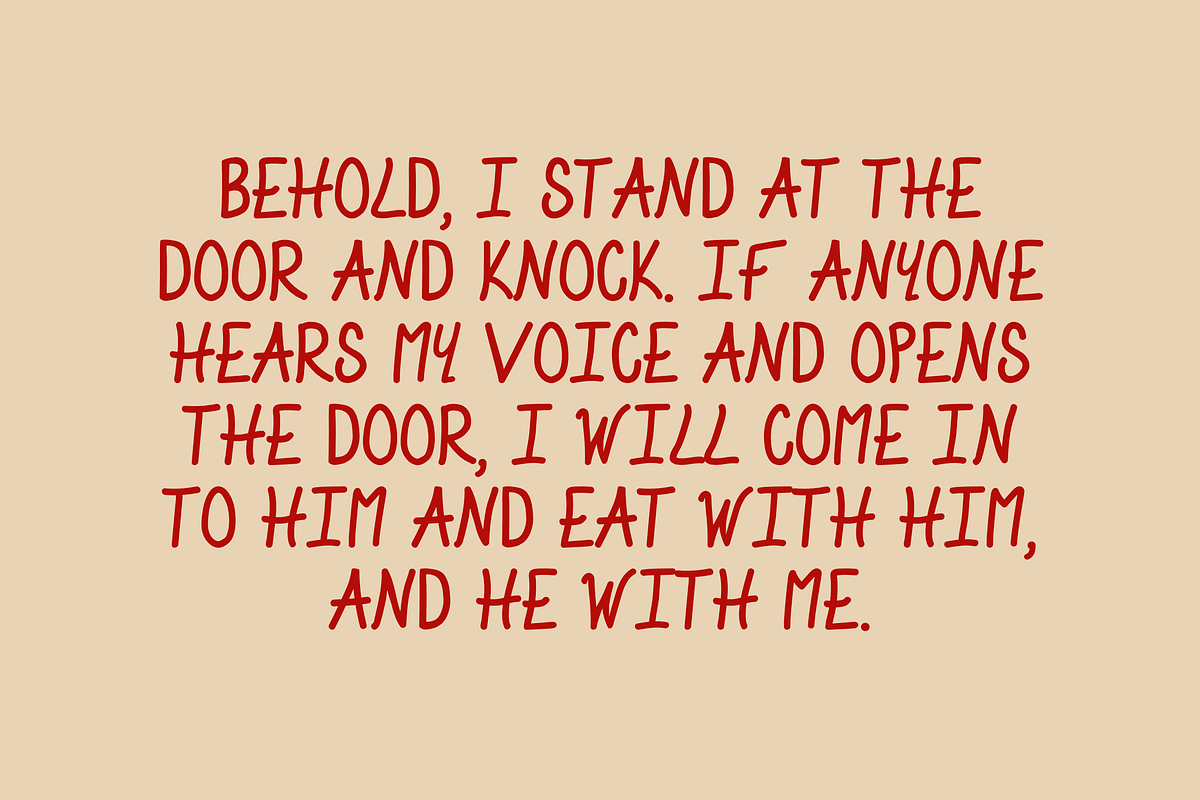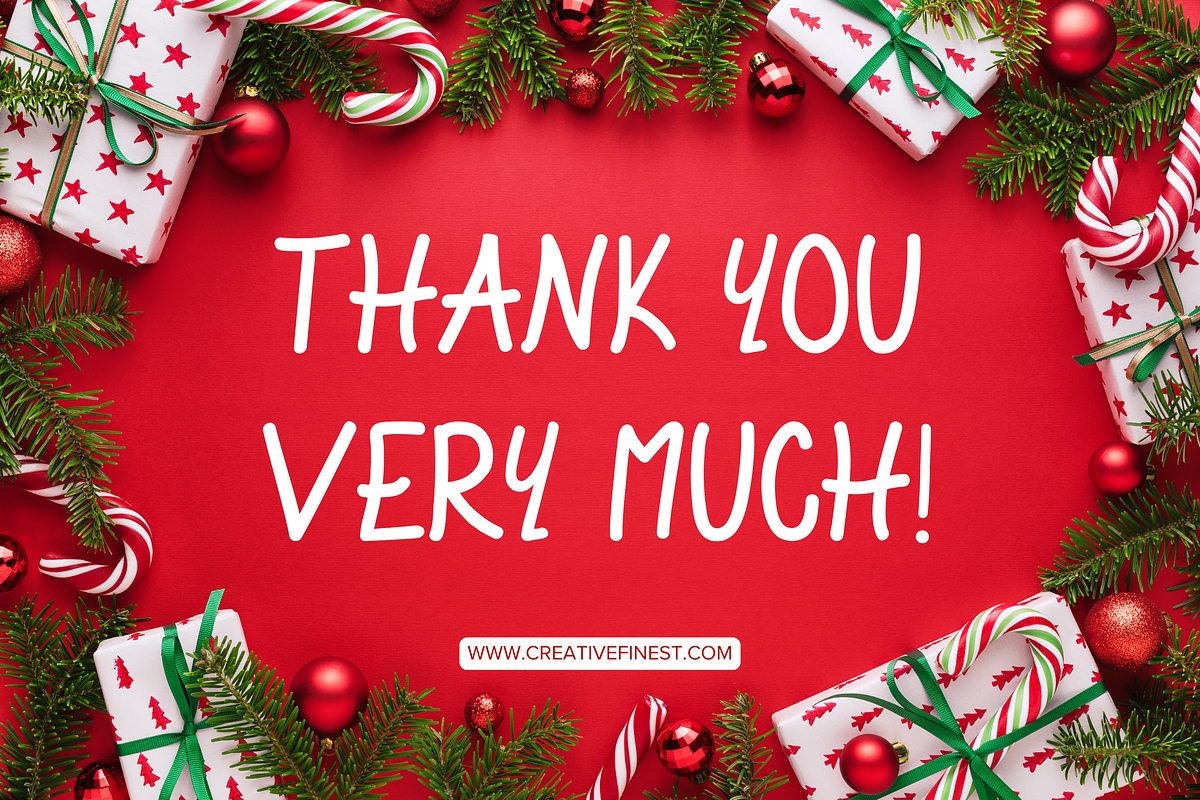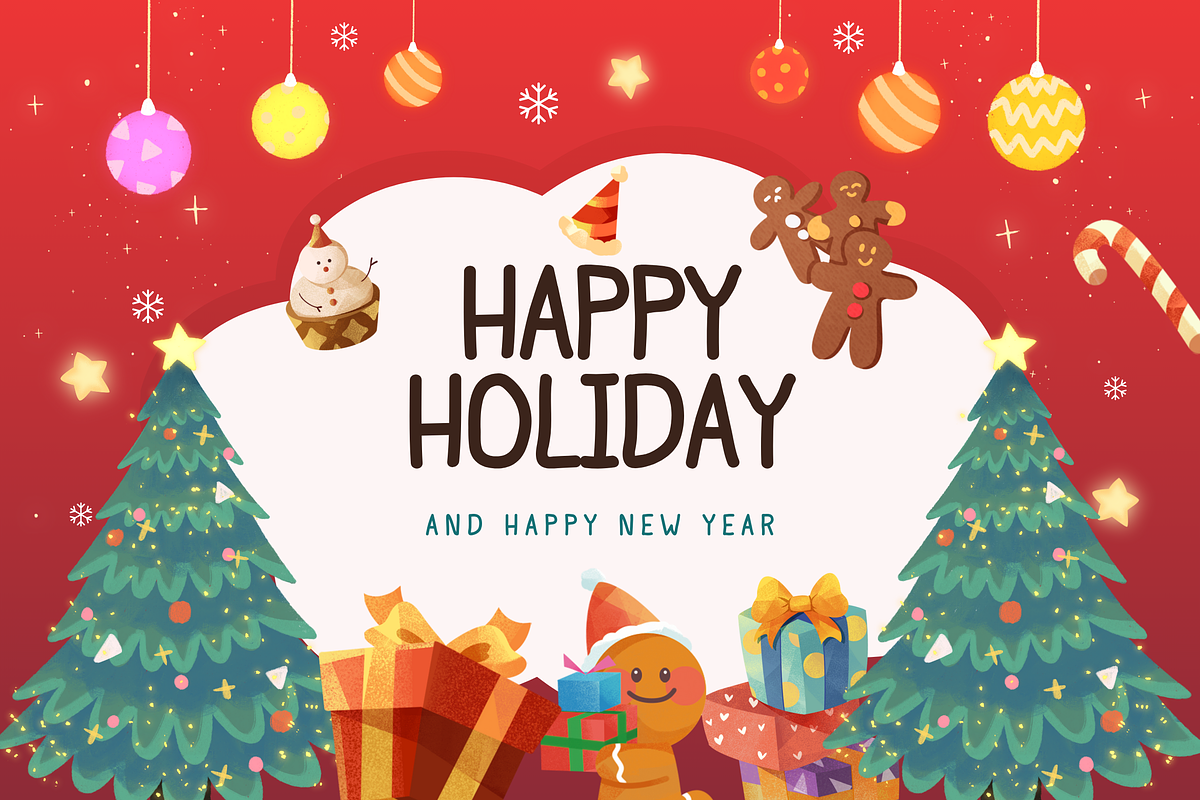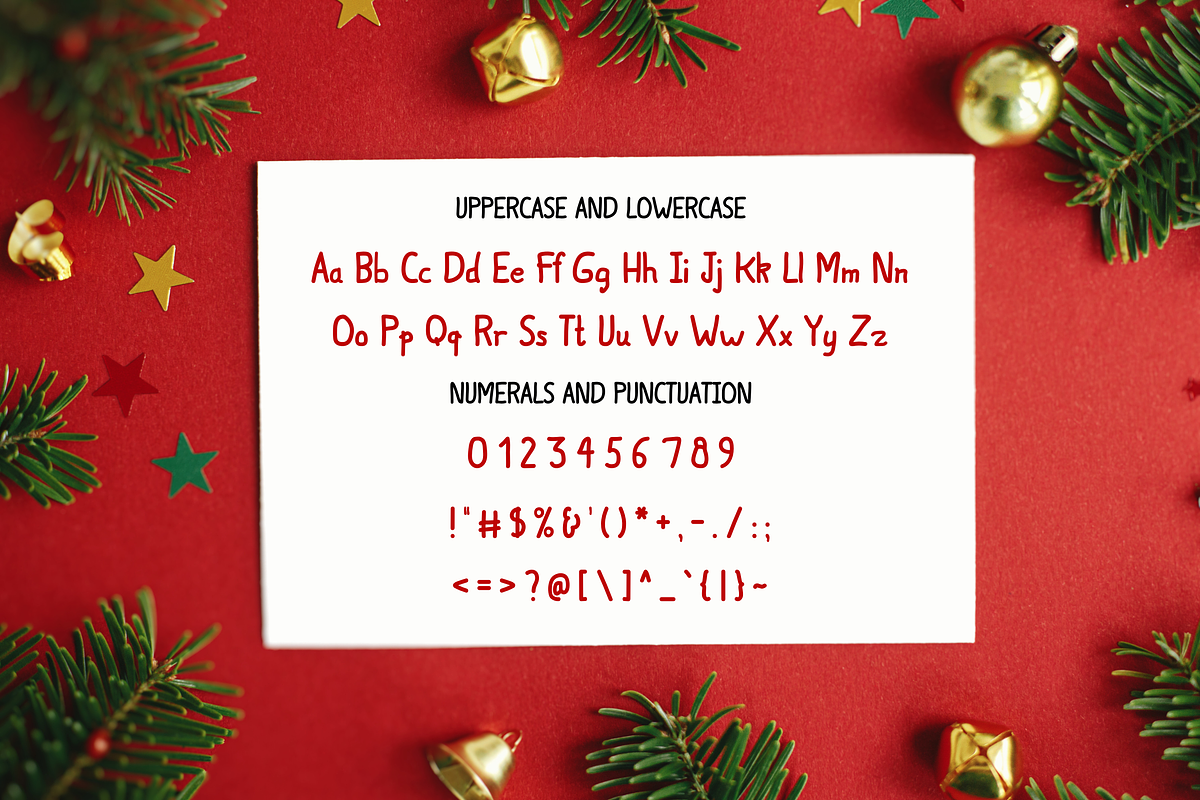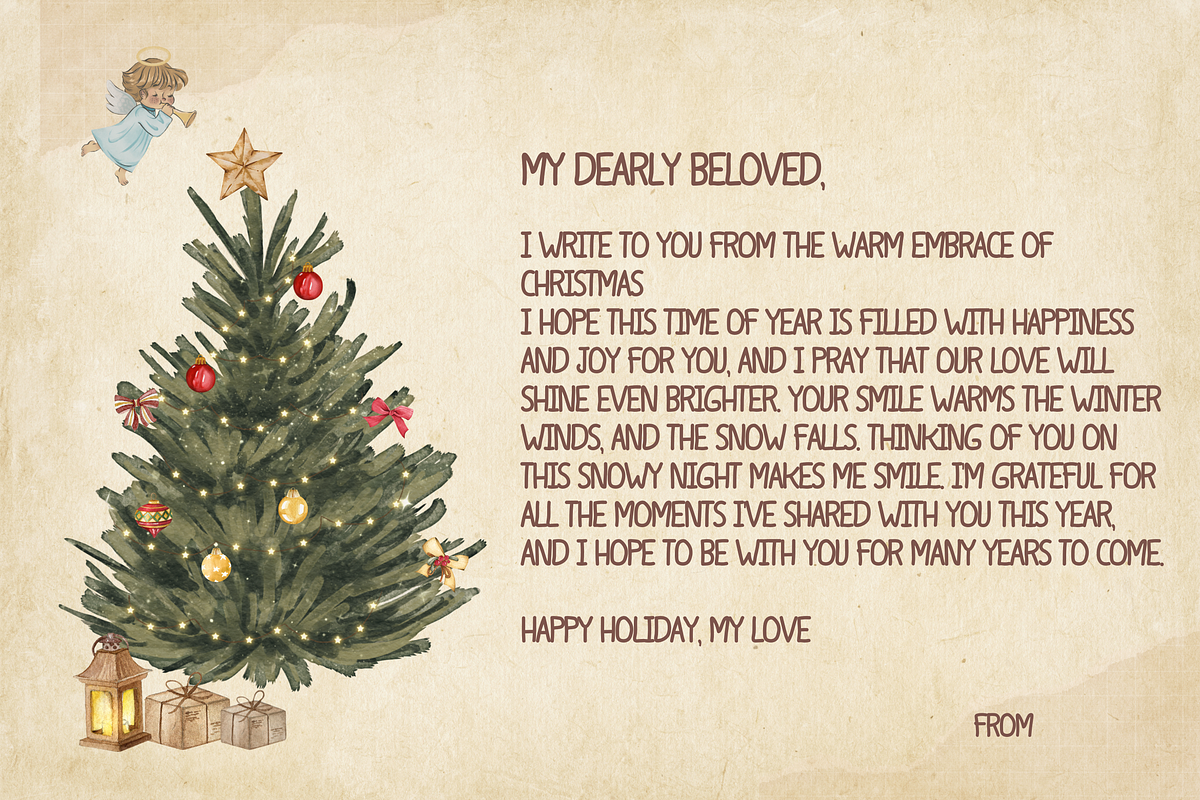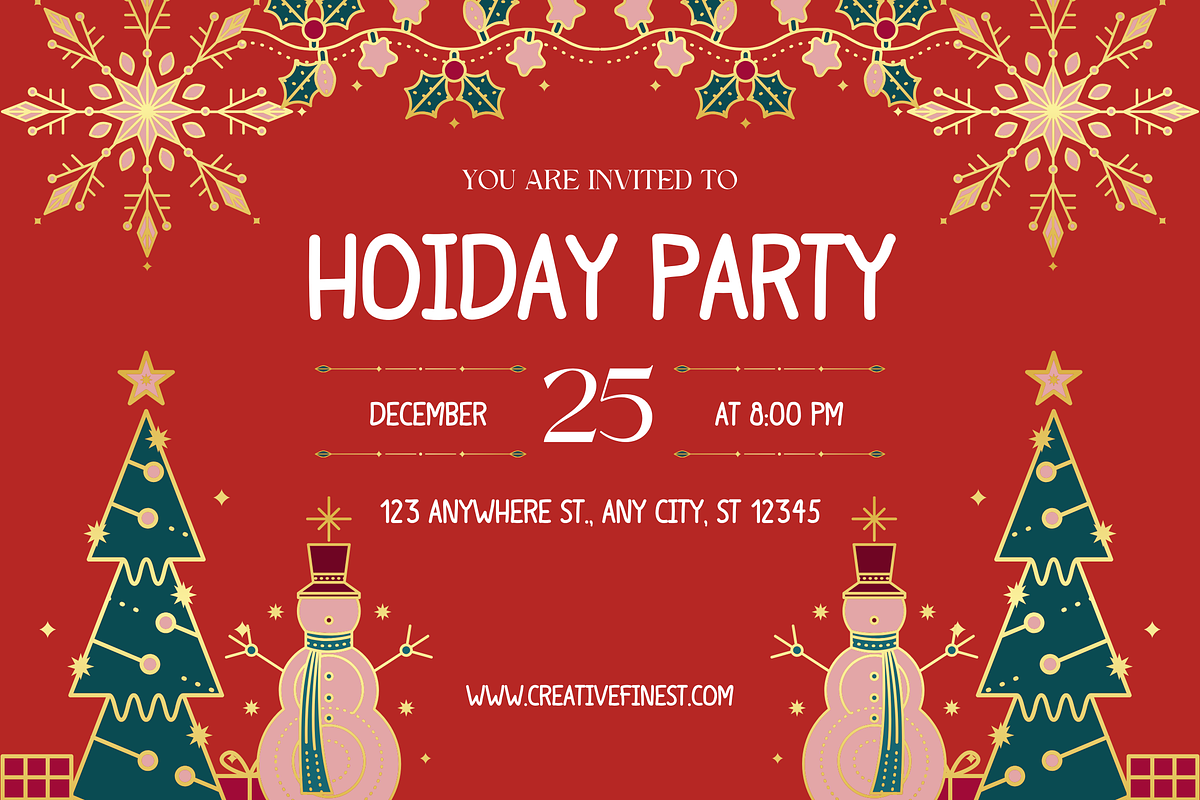
Eadsele Handmade Font
Eadsele Handmade Font is a cheerful and festive font with a handwritten style. It’s ideal for designing Christmas cards, invitations, decorations, and other holiday projects. Its playful and charming look adds a warm and joyful feel to your designs.
This font includes uppercase and lowercase letters, numbers, punctuation, and a variety of special characters. It is versatile and works well with holiday, DIY, and casual design themes.
- Complete set of characters, including international ones (shown in the preview)